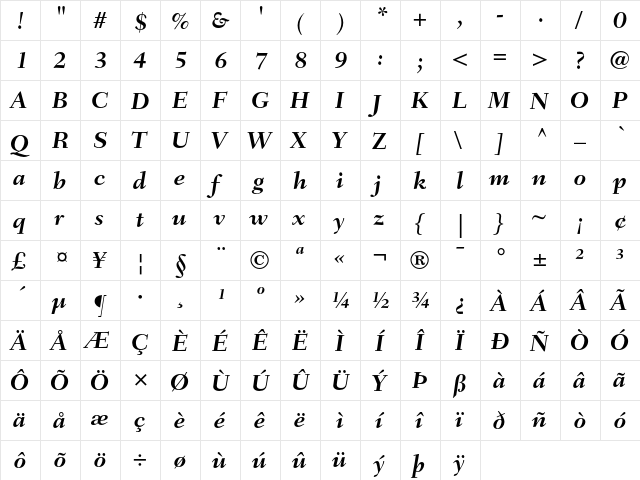
Fairfield LH 76 Bold Italic Font Preview
Design Context for Fairfield LH Typeface
Fairfield LH takes a measured approach to typography — its balanced proportions and neutral character make it a reliable workhorse for both digital and print work. The dynamic lean of this cut emphasises speed and emphasis in any layout. The heavy weight commands attention and anchors typographic hierarchies.
Pro Tip: Try Fairfield LH for annotation and caption copy alongside an upright companion — the contrast in angle creates a dynamic but ordered typographic system.